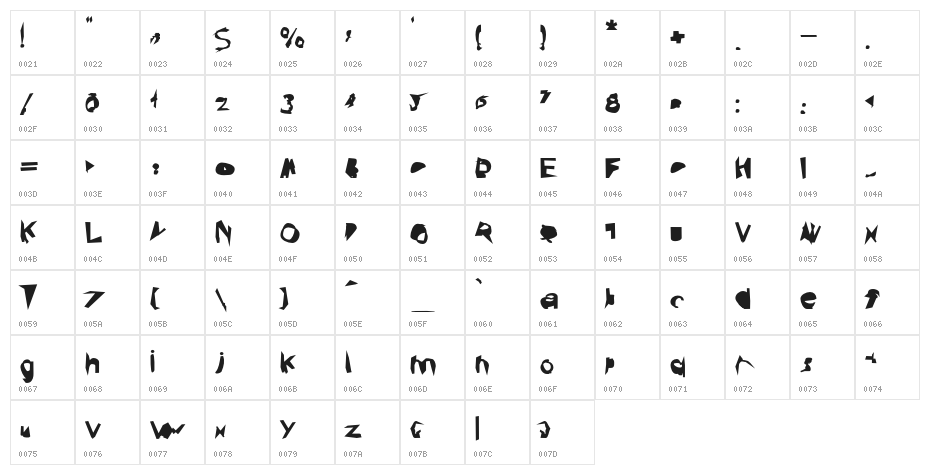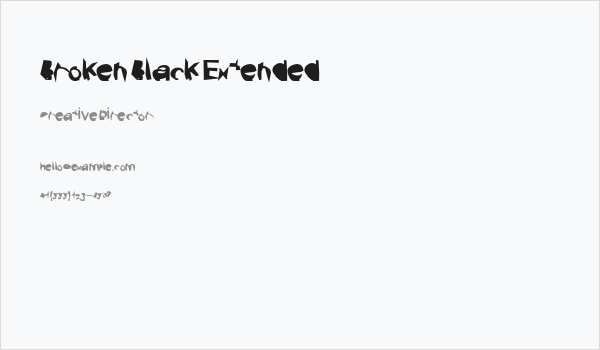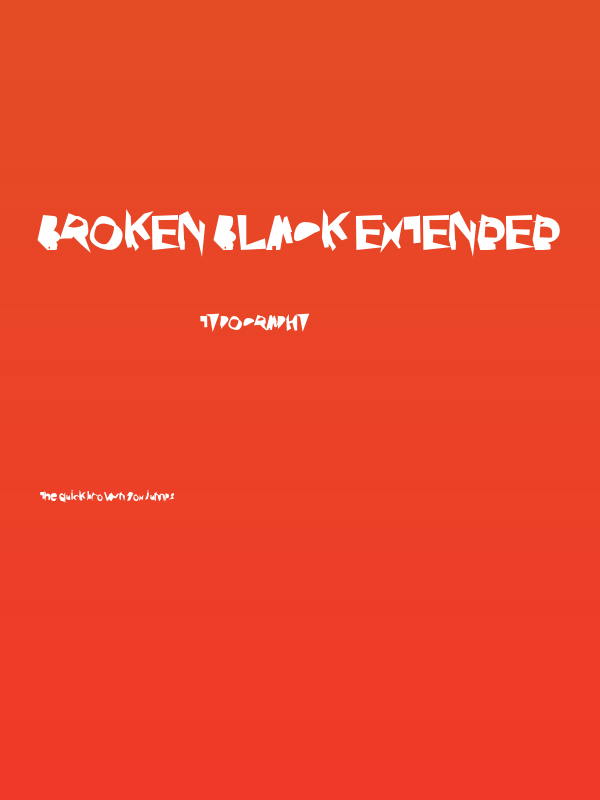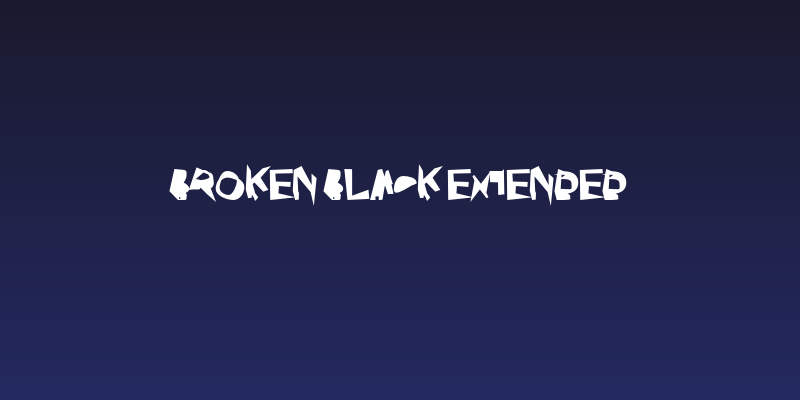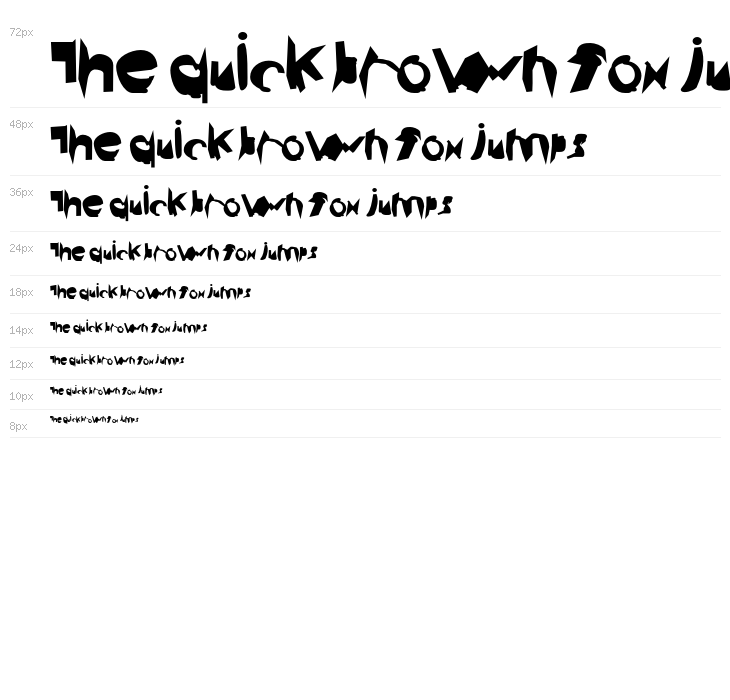
Broken Black Extended Font
Broken Black Extended Description
This font features a bold and striking design with an abstract, fragmented appearance. Each character is uniquely shaped, creating a sense of movement and energy. The letters are heavily stylized, with sharp angles and irregular forms that give it a chaotic yet artistic feel. The uppercase and lowercase letters maintain a consistent theme, while the numbers and special characters continue the bold, broken aesthetic. This font is highly decorative and makes a strong visual impact, suitable for creative and unconventional projects.
| Overall Style | Modern, Artistic |
| Proposed Projects | Ideal for album covers, posters, graffiti art, and edgy branding materials. |